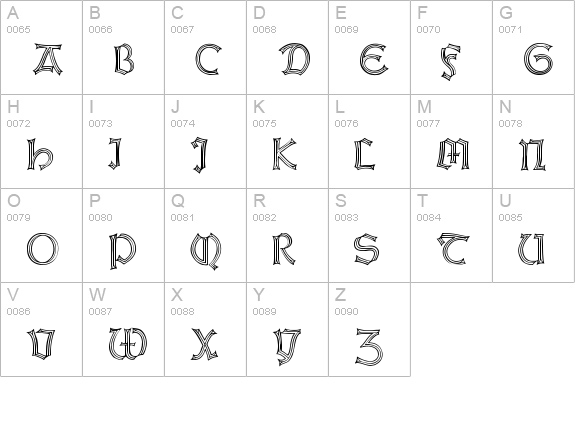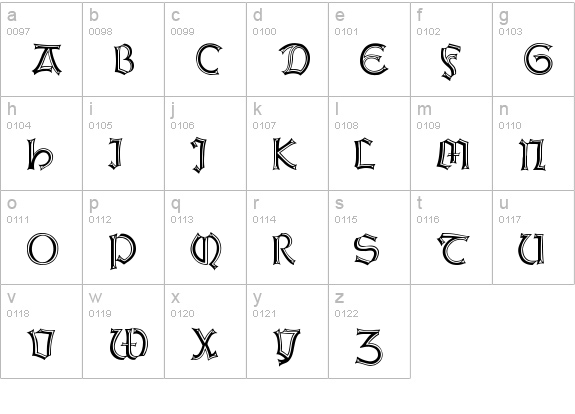
WeissGotnitials Font Details
WeissGotnitials is a stunning font that effortlessly combines elegance and sophistication. With its intricate letterforms and delicate strokes, this font exudes a sense of timeless beauty. Each character is meticulously designed, capturing the essence of classic calligraphy with a modern twist. This font is perfect for adding a touch of luxury to any project. Whether you are creating wedding invitations, branding materials, or elegant logos, WeissGotnitials will elevate your design to new heights. Its graceful curves and flowing lines create a sense of movement and grace, making it a true standout in any composition. The best part? WeissGotnitials is available for free! You can easily download this exquisite font from FontsMarket.com, where it is freely available for personal and commercial use. So whether you are a professional designer or a hobbyist, you can enjoy the beauty of WeissGotnitials without any restrictions. Don't miss out on the opportunity to enhance your designs with this exceptional font. Download WeissGotnitials today from FontsMarket.com and let its timeless elegance transform your creative projects into works of art.